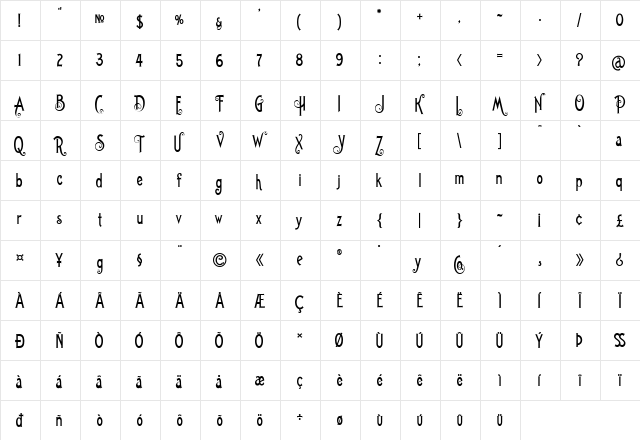
LHF Billhead 1910 Regular
Design Context for LHF Billhead 1910 Typeface
LHF Billhead 1910 is a composed and adaptable typeface that performs quietly and consistently across a wide range of design contexts.